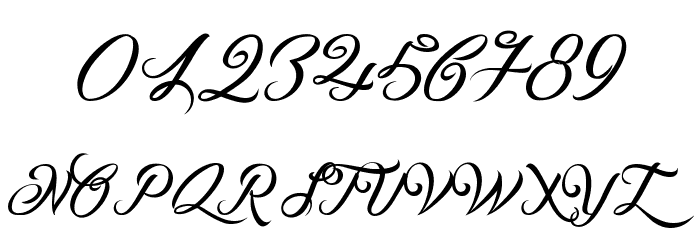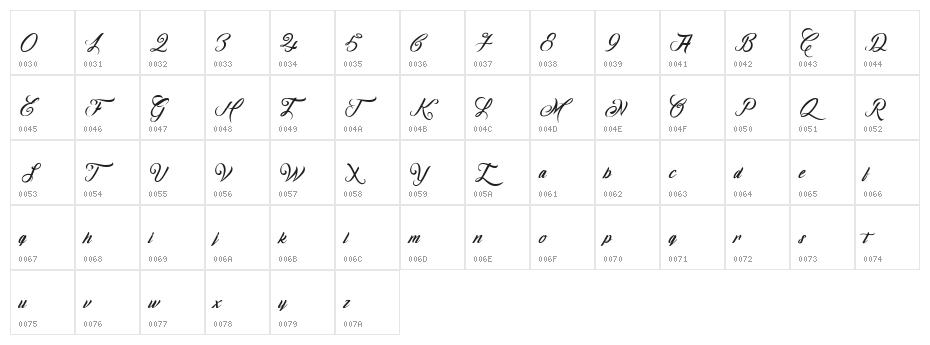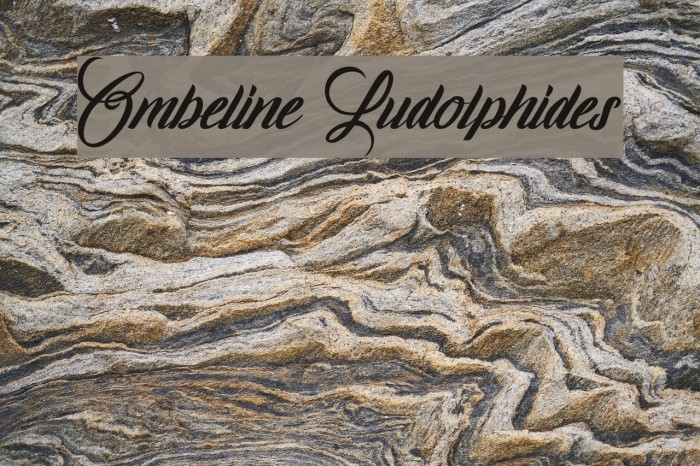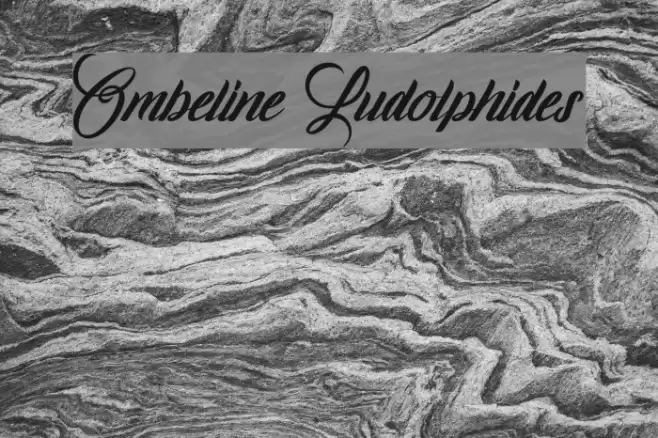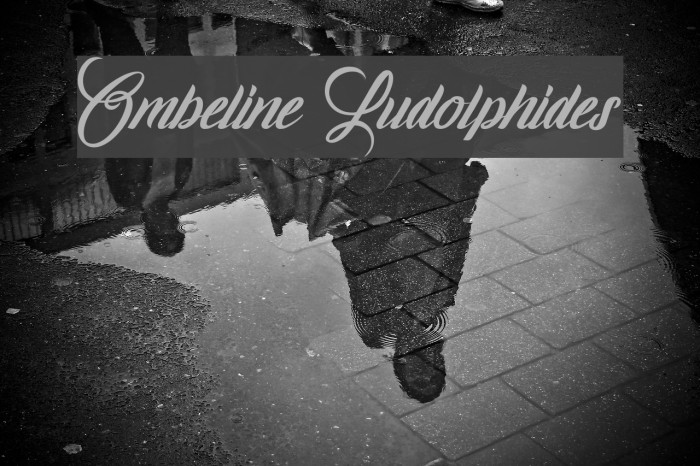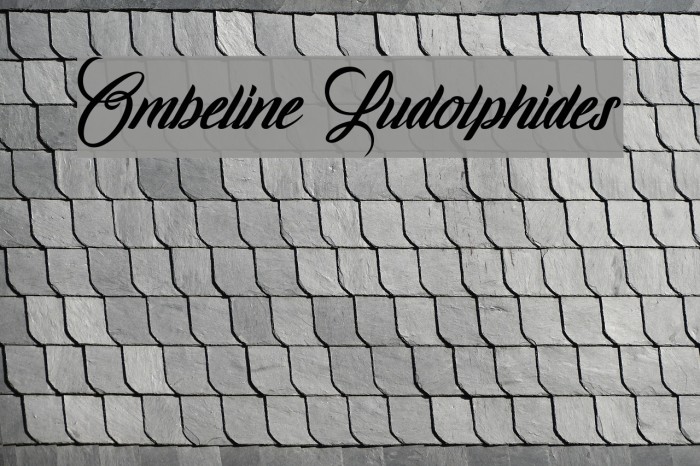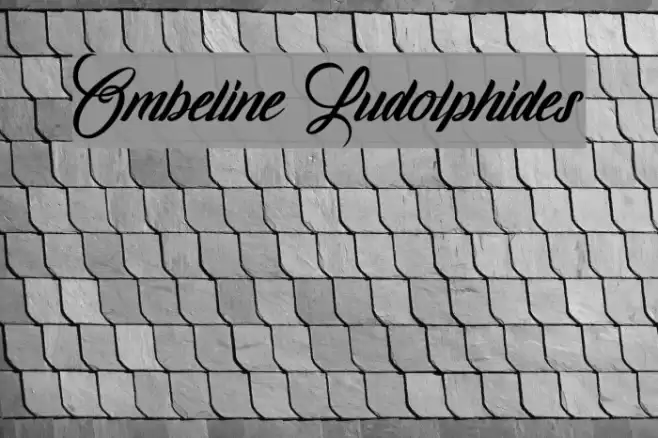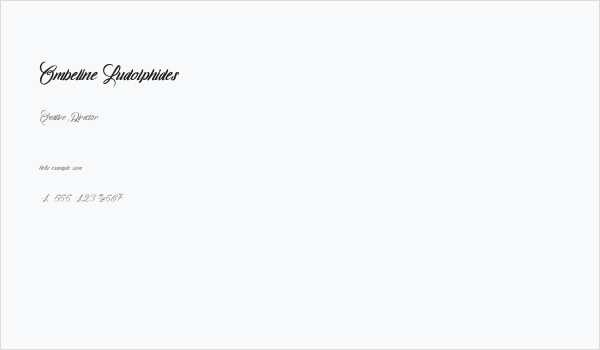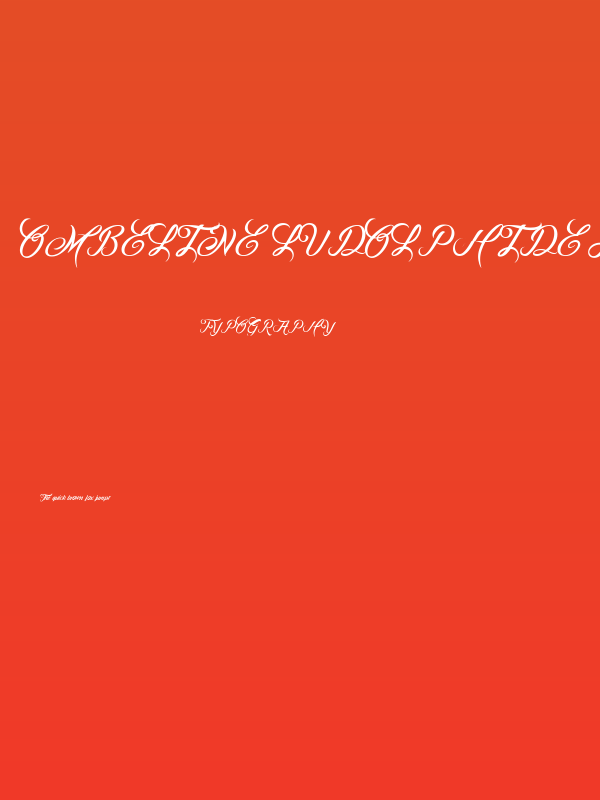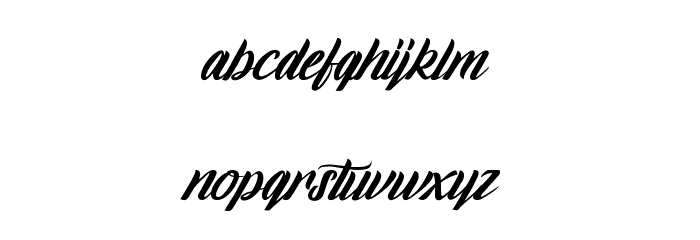
Ombeline Ludolphides Font
Ombeline Ludolphides Description
This elegant script font features flowing, interconnected letters with a classic, calligraphic style. The uppercase letters are ornate, with sweeping curves and flourishes that give a sense of sophistication and grace. The lowercase letters maintain a consistent flow, enhancing readability while preserving the decorative nature of the font. Numbers are styled to match the letters, with similar curves and embellishments. The special characters are designed to integrate seamlessly with the rest of the font, maintaining its cohesive aesthetic. This font is ideal for projects that require a touch of elegance and formality.
Overall StyleClassic
Use CaseLogos, Invitations, Branding
Proposed ProjectsIdeal for wedding invitations, formal event programs, elegant branding, and luxury product packaging.